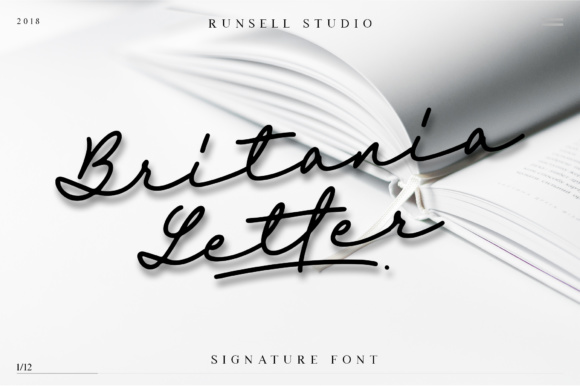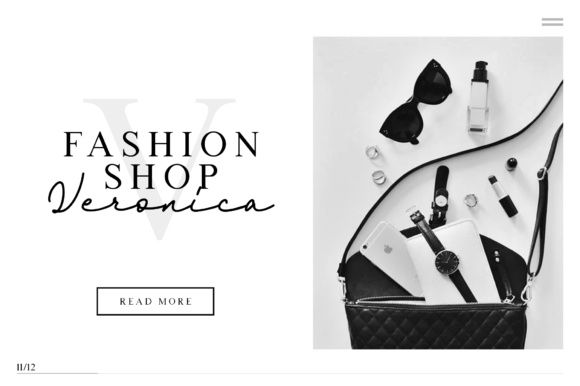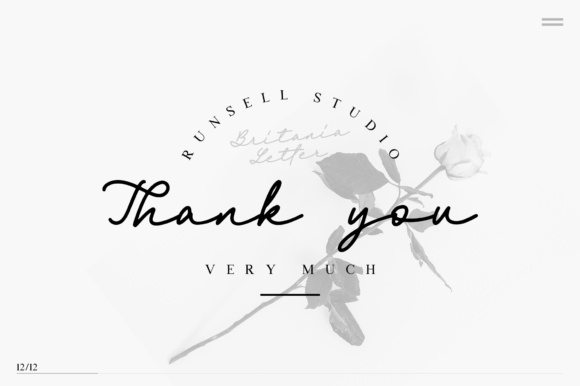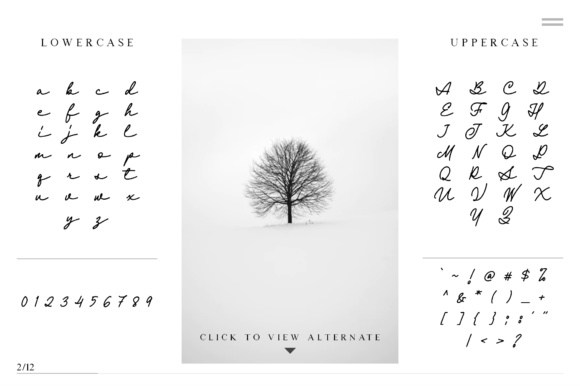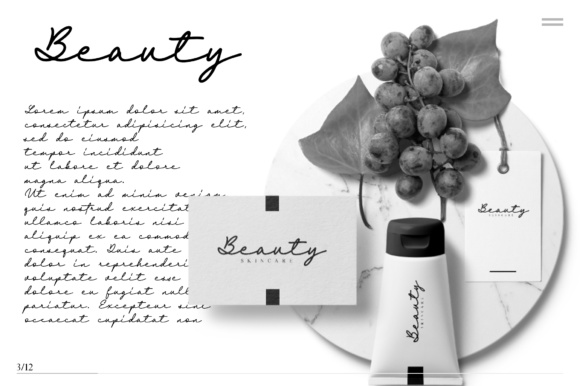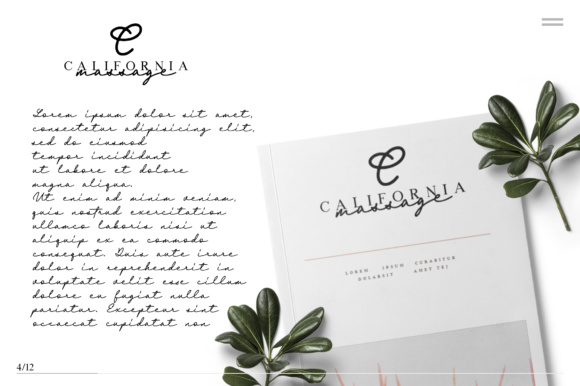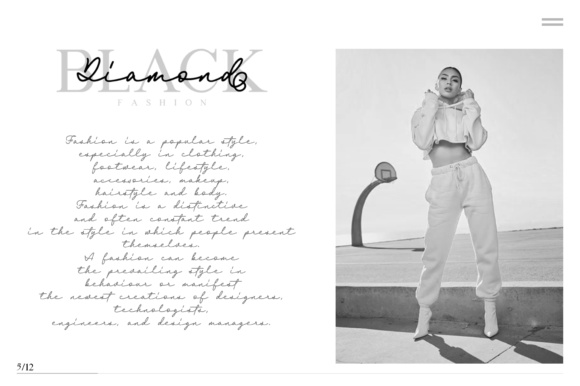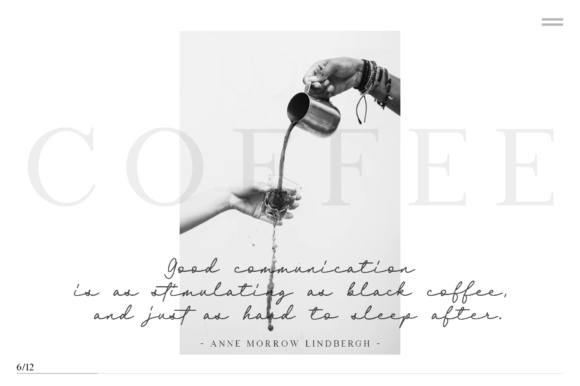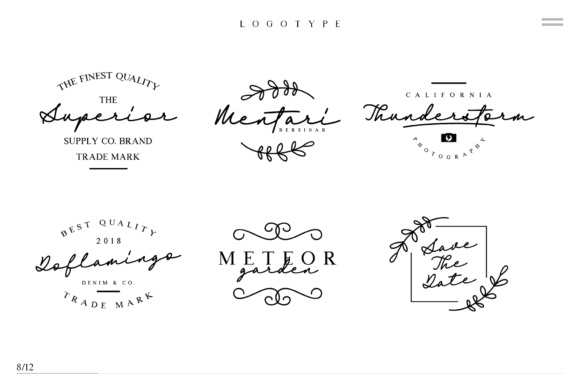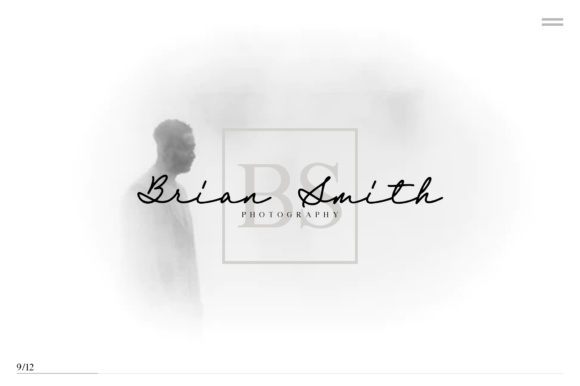
Britania Letter Font
The Britania Letter is an elegant handwriting font with a distinctive curve. Its classic style is perfect for authentic projects.